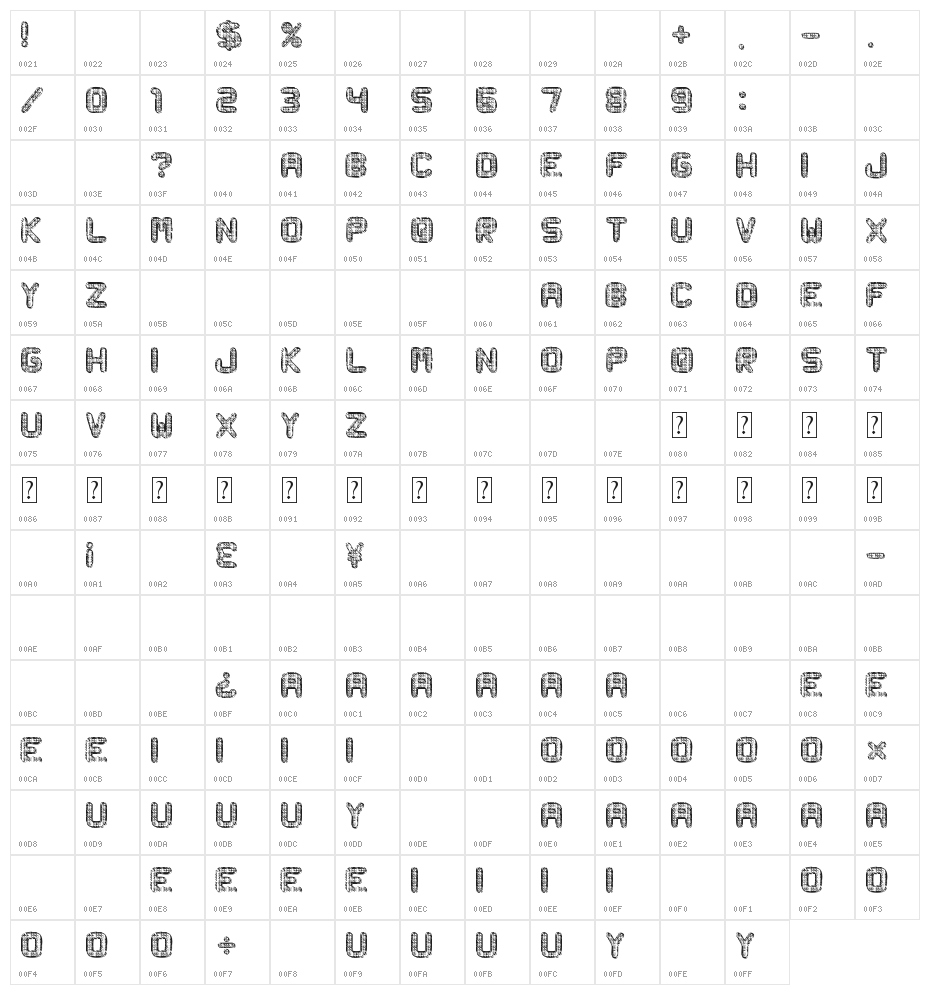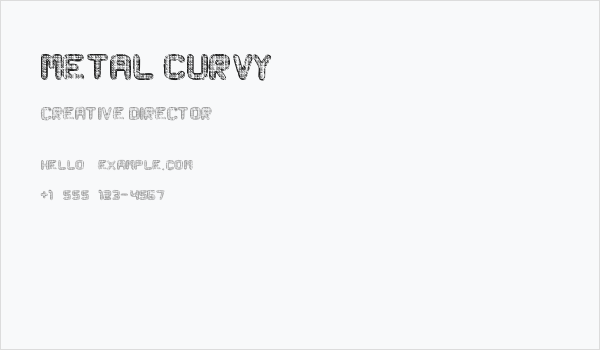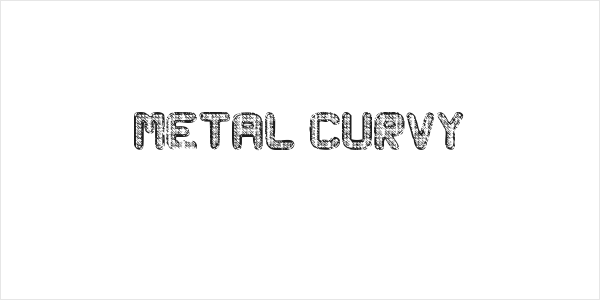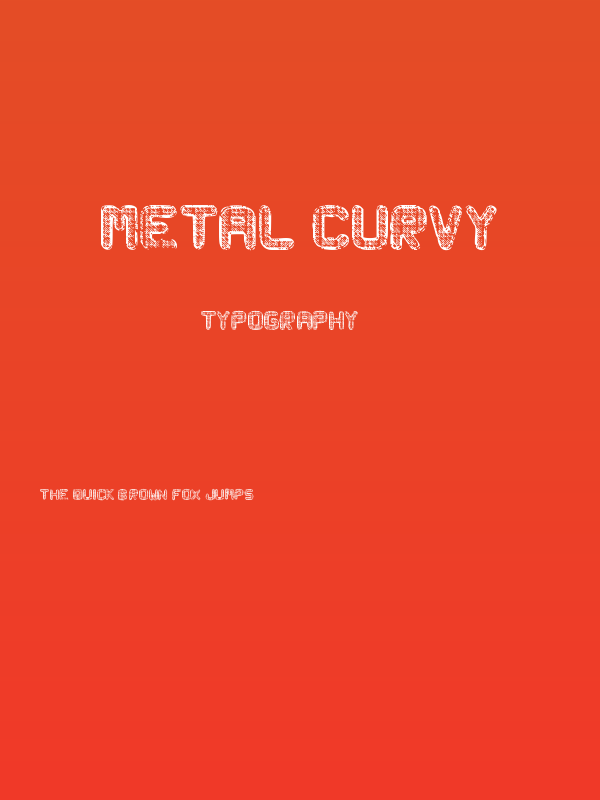
Metal Curvy Font
Metal Curvy Description
This font features a bold, industrial design with a textured, metallic appearance. The letters are crafted with a curvy, rounded structure, giving them a unique, eye-catching look. The texture resembles a scratched or etched metal surface, adding depth and character. Each character maintains a consistent width, contributing to a uniform and cohesive appearance. The font's boldness and distinct style make it suitable for projects that require a strong visual impact. Its decorative nature is ideal for headlines, posters, and branding materials where a modern, edgy aesthetic is desired.
Overall StyleModern, Industrial
Use CaseHeadlines, Branding, Posters
Proposed ProjectsIdeal for use in branding, posters, headlines, and any project requiring a strong, modern aesthetic.